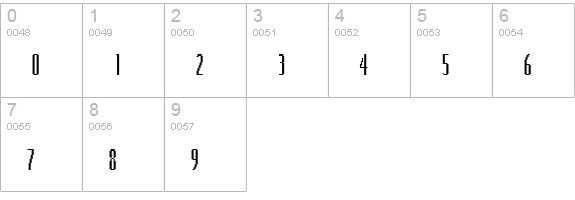
BitsCondensed Font Details
BitsCondensed is a sleek and modern font that strikes the perfect balance between professionalism and creativity. Its condensed design makes it ideal for projects where space is limited, yet its clean lines and sharp edges ensure readability and impact. This versatile typeface is perfect for a wide range of applications, from branding and advertising to editorial and web design. One of the best things about BitsCondensed font is that it is completely free to download at FontsMarket.com. Whether you're a student, designer, or business owner looking to elevate your projects with a fresh and contemporary font, BitsCondensed is a fantastic choice that won't cost you a thing. Download it today and see how this stylish font can transform your designs!